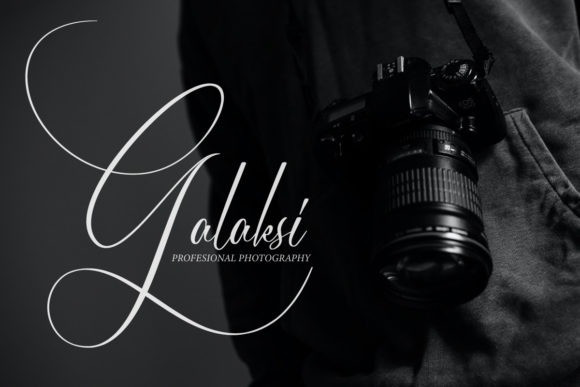
Diamond Flower Font
Diamond Flower Script Font is a slim and delicate script font. This gentle font will look gorgeous on a variety of design ideas. Diamond Flower is PUA encoded which means you can access all of the glyphs and swashes with ease!